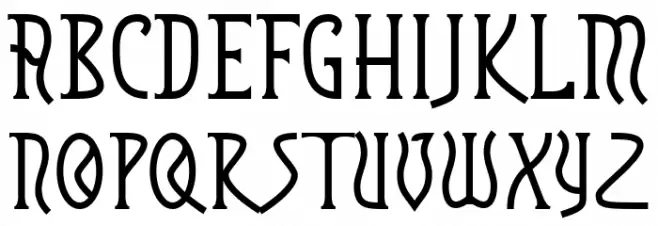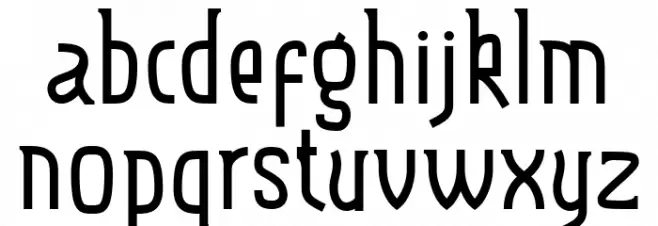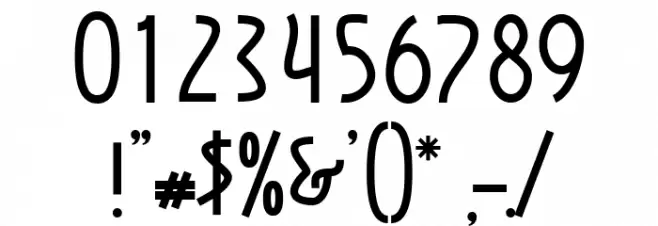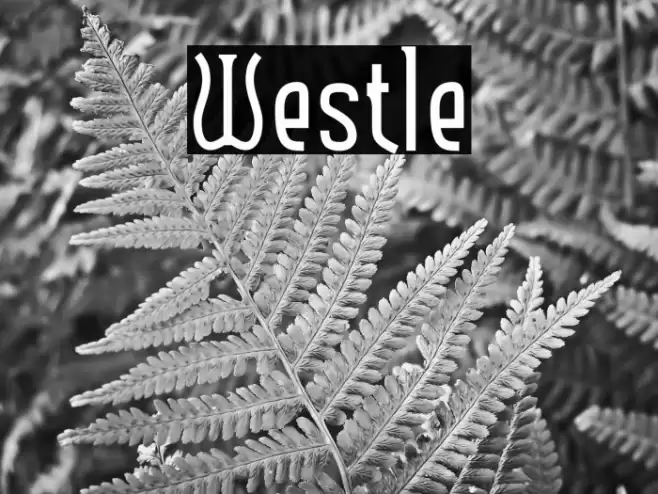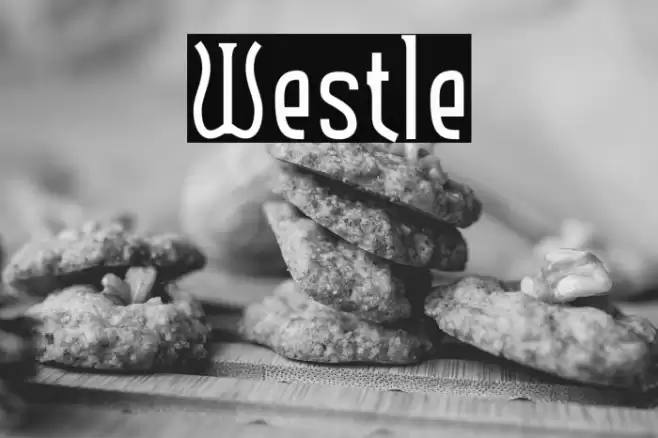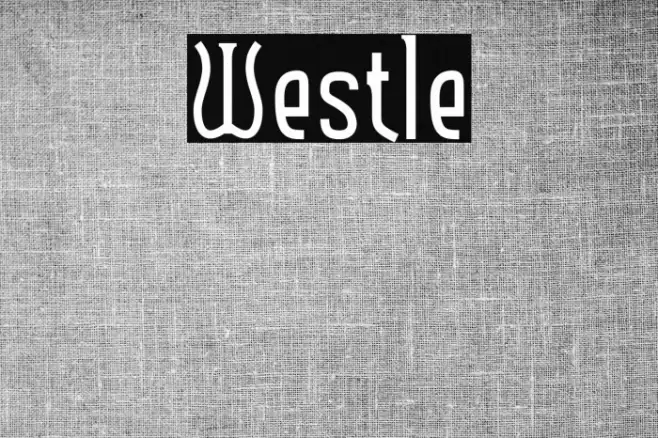
Westle
This font features a unique blend of modern and vintage styles, characterized by its tall, narrow letters with slight curves and sharp edges. The uppercase letters exhibit a distinct flair with elongated verticals and subtle serifs, while the lowercase letters maintain a consistent height and clean lines. The numerals are bold and easily readable, complementing the overall aesthetic. Special characters are designed with the same attention to detail, ensuring a cohesive look across all glyphs. This font's design is both eye-catching and versatile, making it suitable for a variety of creative applications.
A modern-vintage font with tall, narrow letters and subtle serifs.
- Proposed Projects: Ideal for branding, poster design, and editorial layouts where a distinctive and stylish typeface is desired.
- Width: Condensed
- Overall Style: Modern, Vintage